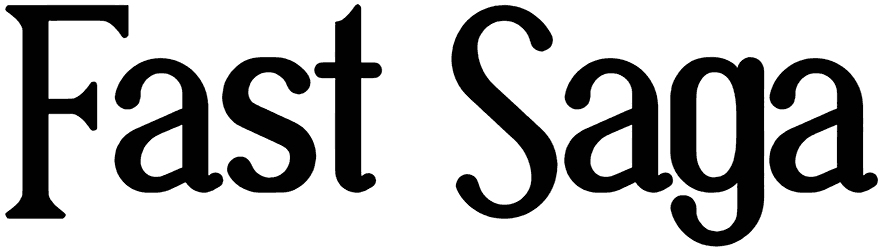
Fast Saga Font
Giving a classic and legible visual with a serif font to words of your design is always a popular choice, and Fast Saga can do it well. This basic font covers two versions, but it doesn’t have numbers and punctuation marks. Varied creative designs, such as a drama movie poster, a business card for any field, and so forth, can be eye-catching with the humble form of Fast Saga font.